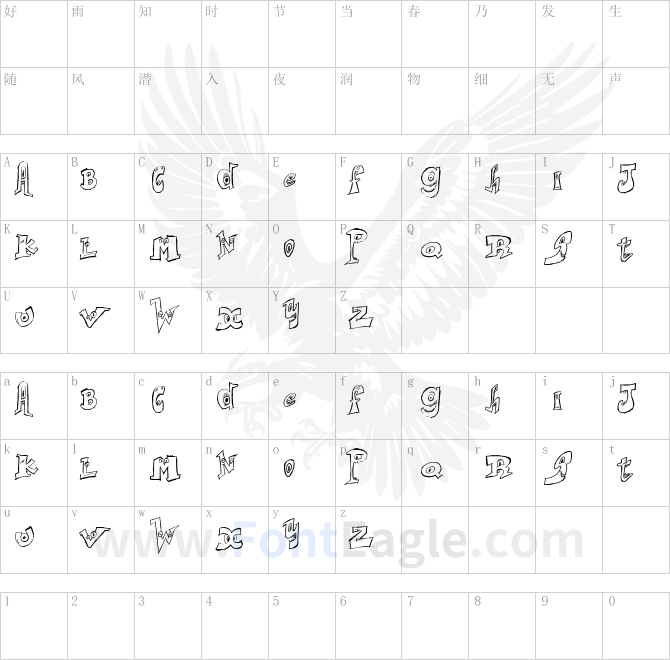
- Font name:Smart Faces
- Font Subfamily ID:Smart Faces:Version 1.00
- Font Full Name:Smart Faces
- Font Version:Version 1.00 August 30, 2011, initial release
- Postscript:SmartFaces
- Font Copyright:© Imagex 2011